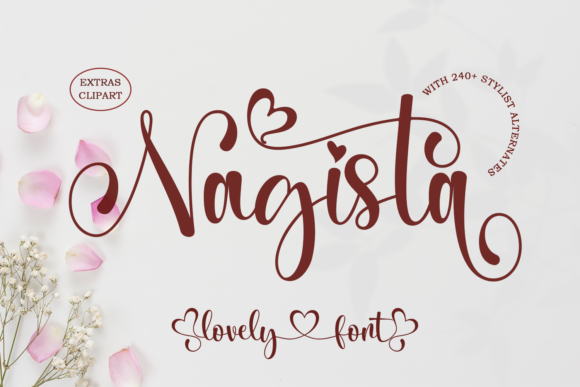
Unlocking Elegance with Nagista: The Duo Font Script and Dingbats for Custom Designs
In the world of graphic design, few things capture attention quite like a perfectly chosen typeface. When you are working on a project that demands personality, warmth, and a touch of sophistication, standard sans-serifs or rigid serifs often fall short. This is where Nagista steps in as a game-changer. It is not merely a font; it is a complete design solution that combines a lovely duo font script with an extensive array of dingbats to elevate your visual storytelling.
Whether you are designing a wedding invitation suite, crafting a bespoke logo, or creating greeting cards that need to stand out on a crowded shelf, Nagista offers the customized touch that modern projects require. Its unique architecture allows designers to move beyond the limitations of traditional text and create truly one-of-a-kind compositions.
The Artistry Behind the Duo Font Script
At its core, Nagista is celebrated for its fluidity and grace. As a duo font script, it provides two distinct but harmonious styles that work seamlessly together. This duality is crucial for maintaining visual interest without sacrificing readability. One style might offer a more formal, upright structure perfect for headers, while the other flows with a casual, handwritten charm ideal for body text or accents.
When you look at how Nagista is rendered on paper or screen, the strokes feel organic. They mimic the natural movement of a calligraphy pen, capturing the subtle variations in line weight that give hand-lettered work its soul. This makes it an ideal choice for wedding invitations, where the tone must be romantic and inviting. Imagine the difference between a standard invitation and one that features the delicate flourishes of Nagista; the latter immediately sets an expectation of quality and care.
Beyond weddings, this script shines in thank you cards. In an era dominated by digital communication, a physical thank you note stands out precisely because of its personal nature. Using Nagista adds a layer of intimacy that blocky fonts simply cannot achieve. The swashes and ligatures interact naturally, making the text appear as if it was written specifically for the recipient.
Integrating Dingbats for Visual Flair
What truly separates Nagista from other script fonts is its comprehensive collection of dingbats. These are not just random decorations; they are carefully crafted graphical elements that complement the letterforms. From floral motifs and elegant swirls to abstract shapes, these dingbats allow designers to frame their content and guide the viewer's eye through the layout.
- Decorative Borders: Use the dingbats to create intricate frames around quotes or business card details.
- Section Dividers: Replace standard lines with elegant swashes to separate different parts of a document.
- Accent Elements: Sprinkle small icons throughout a poster or flyer to break up large blocks of text.
This versatility makes Nagista perfect for greeting cards. Whether it is a birthday card needing a festive touch or a holiday card requiring a classic feel, the dingbats provide the necessary visual weight. You can arrange them to form patterns, borders, or standalone artistic statements that enhance the message without overwhelming it.
Technical Mastery: The Power of PUA Encoding
One of the most significant advantages of using Nagista is its technical implementation. The font is PUA encoded (Private Use Area). For those unfamiliar with typography terminology, this might sound complex, but the practical benefit is straightforward: it grants you unrestricted access to every glyph and swash included in the package.
Traditional fonts often limit access to special characters, forcing designers to use workarounds or third-party plugins to access alternate forms. With Nagista, PUA encoding means that all the beautiful swashes, ligatures, and dingbats are mapped directly to specific keys on your keyboard. This streamlines your workflow significantly.
Imagine you are designing a logo for a boutique brand. You want to incorporate a specific flourish into the letter 'S'. Because Nagista is PUA encoded, you can simply press the corresponding key to insert that exact glyph instantly. There is no need to manually draw curves in vector software or search through layers. This efficiency allows you to focus on creativity rather than technical hurdles.
Applications Across Industries and Projects
The adaptability of Nagista extends far beyond stationery. While it excels in print media, its aesthetic qualities translate beautifully to digital formats as well. Let's explore how this font fits into various professional scenarios.
Branding and Logos
For businesses looking to convey luxury, creativity, or personal service, Nagista is a strong contender. A business card designed with Nagista immediately communicates a high level of attention to detail. The combination of the script and the accompanying dingbats creates a cohesive brand identity that feels custom-made. It is particularly effective for industries like fashion, beauty, event planning, and artisanal crafts.
Digital Content and Social Media
In the realm of social media graphics, visuals need to stop the scroll. Quotes shared on Instagram or Pinterest often rely on typography to set the mood. Nagista's flowing lines add an emotional resonance to motivational quotes or testimonials. When paired with the right background and color palette, the font ensures that the message is not just read, but felt.
Event Design
Beyond invitations, Nagista is invaluable for full-event branding. Think about menu cards, place settings, ceremony programs, and signage. Consistency is key in event design, and having a single font family that covers both text and decorative elements simplifies the process. You can maintain a unified theme from the initial save-the-date to the final thank-you note.
Why Choose Nagista Over Other Scripts?
The market is saturated with script fonts, so what makes Nagista worth your consideration? The answer lies in the balance between beauty and functionality. Many script fonts sacrifice legibility for style, making them difficult to use for anything other than headlines. Nagista, however, maintains a high degree of readability even at smaller sizes, thanks to its thoughtful spacing and character design.
Furthermore, the inclusion of the dingbats within the same font file ensures compatibility. You do not have to worry about missing glyphs when moving files between different computers or software applications. Everything is contained in one package, ready to be deployed. This reliability is essential for professionals who need to deliver projects on tight deadlines.
Another factor is the customization potential. Because you have access to all the swashes via PUA encoding, you can mix and match elements to create unique variations. No two designs have to look exactly alike. This flexibility is crucial for clients who demand a personalized touch and want their materials to reflect their unique brand voice.
Practical Tips for Working with Nagista
To get the most out of this versatile tool, consider a few best practices during your design process. First, pay attention to kerning. While Nagista is designed with good spacing in mind, fine-tuning the space between letters can make a significant difference in the overall polish of your design. Second, don't overuse the dingbats. They are powerful tools, but too many can clutter the design and distract from the main message. Use them strategically to highlight important information or to add a frame of elegance.
Finally, test your designs in both black and white. Since Nagista relies heavily on stroke contrast and negative space, it should remain legible even without color. This ensures that your logos and business cards will look great whether printed on colored stock or sent as a grayscale email attachment.
In conclusion, Nagista represents the intersection of art and utility. It is a font that understands the needs of the modern designer while providing the timeless elegance required for high-end projects. Whether you are crafting a wedding invitation that will be treasured for generations or designing a logo that defines a new brand, Nagista provides the customized touch that elevates your work from good to extraordinary.